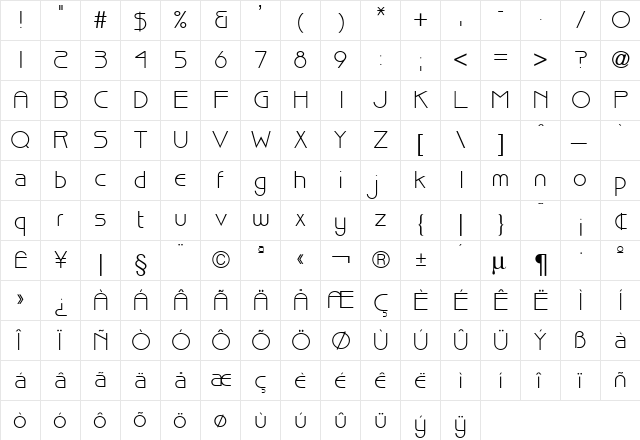
Brisk Regular
Design Context for Brisk Typeface
Brisk takes a measured approach to typography — its balanced proportions and neutral character make it a reliable workhorse for both digital and print work.